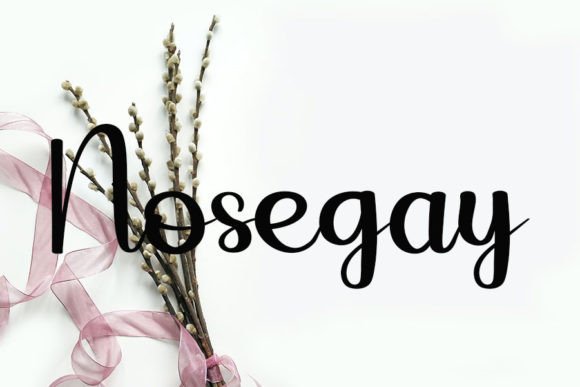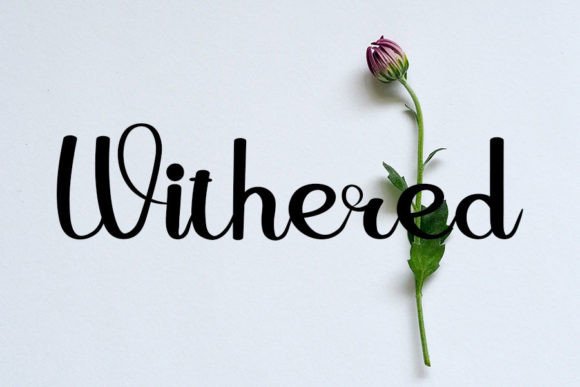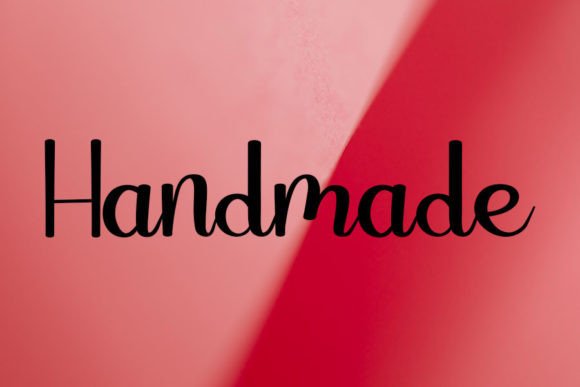
Discover the Elegance of Darling Font: Elevate Your Designs with Timeless Style
Are you on the hunt for a font that exudes elegance, sophistication, and a touch of handmade charm? Look no further than the Darling Font, a stunning handwritten typeface that is sure to capture your heart. With its incredibly distinct and timeless style, Darling Font is the perfect addition to your design arsenal, allowing you to create spectacular designs that stand out from the crowd.
The Beauty of Darling Font
Darling Font is described as a neat and beautiful handwritten font, characterized by an elegant touch that sets it apart from other typefaces. Its unique blend of classic and modern elements makes it an ideal choice for designers and crafters looking to add a personal touch to their projects. Whether you’re working on a logo, branding materials, social media graphics, or craft projects, Darling Font is sure to bring a level of sophistication and refinement that’s hard to match.
What Makes Darling Font So Special?
So, what makes Darling Font so special? Here are just a few reasons why designers and crafters are falling in love with this gorgeous typeface:
- Elegant and Refined: Darling Font boasts an elegant and refined aesthetic that’s perfect for projects that require a touch of sophistication.
- Handwritten Charm: With its handwritten origins, Darling Font brings a level of warmth and personality to your designs that’s hard to replicate with generic fonts.
- Versatile: Whether you’re working on digital projects or print materials, Darling Font is incredibly versatile and can be used in a wide range of applications.
- Distinct and Timeless: Darling Font’s unique style is both distinct and timeless, ensuring that your designs will stand the test of time and remain relevant for years to come.
Using Darling Font in Your Designs
One of the best things about Darling Font is how easy it is to use in your designs. Here are a few tips to get you started:
- Pair it with Other Fonts: Darling Font pairs beautifully with other fonts, allowing you to create stunning contrast and visual interest in your designs.
- Experiment with Colors: With its elegant and refined aesthetic, Darling Font looks amazing in a wide range of colors. Don’t be afraid to experiment and find the perfect hue for your project.
- Add Texture and Patterns: To add an extra layer of depth and interest to your designs, consider adding texture and patterns to your Darling Font text.
Darling Font is a perfect choice for designers and crafters looking to add a personal touch to their projects. Here are just a few ways you can use Darling Font in your work:
- Logo Design: Create stunning logos that stand out from the crowd with Darling Font’s elegant and refined aesthetic.
- Branding Materials: Use Darling Font to create beautiful branding materials, such as business cards, letterheads, and brochures.
- Social Media Graphics: Add a touch of elegance and sophistication to your social media graphics with Darling Font.
- Craft Projects: Darling Font is also perfect for craft projects, such as handmade cards, invitations, and scrapbooking.
In conclusion, Darling Font is a stunning handwritten typeface that is sure to capture your heart. With its elegant and refined aesthetic, incredibly distinct and timeless style, and versatility, Darling Font is the perfect addition to your design arsenal. Whether you’re a designer or crafter, Darling Font is sure to help you create spectacular designs that stand out from the crowd. So why wait? Fall in love with Darling Font today and take your designs to the next level!